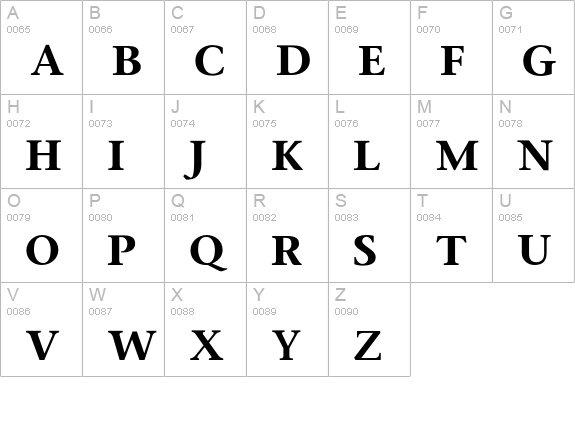
StoneSerifSemiBold Font Details
StoneSerifSemiBold is a versatile and modern font that exudes sophistication and elegance. With its strong and bold appearance, this typeface is perfect for creating eye-catching headlines, titles, and logos. The sharp serifs and clean lines of StoneSerifSemiBold give it a professional and polished look that is sure to make your designs stand out. What's even better is that StoneSerifSemiBold is available for free download at FontsMarket.com. This means you can easily access this high-quality font without any cost, making it a valuable addition to your font collection. Whether you're working on a print design project, a website, or any other creative endeavor, StoneSerifSemiBold is a fantastic choice that will elevate your work to the next level. Download it now and add a touch of sophistication to your designs!